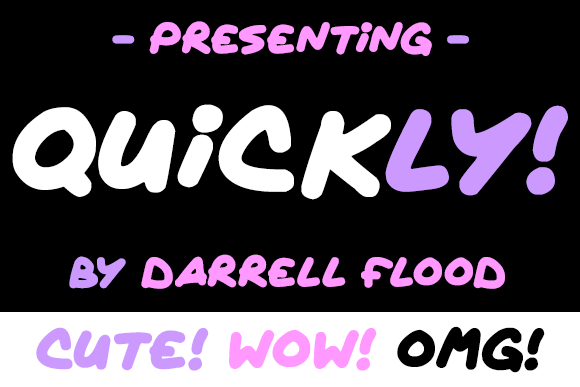
Quickly Font
About Quickly Font
Quickly is a cutesy, hand drawn font in a thick marker style. Angled for a sense of speed and purpose, Quickly is the perfect choice for cartoonish notes and designs!